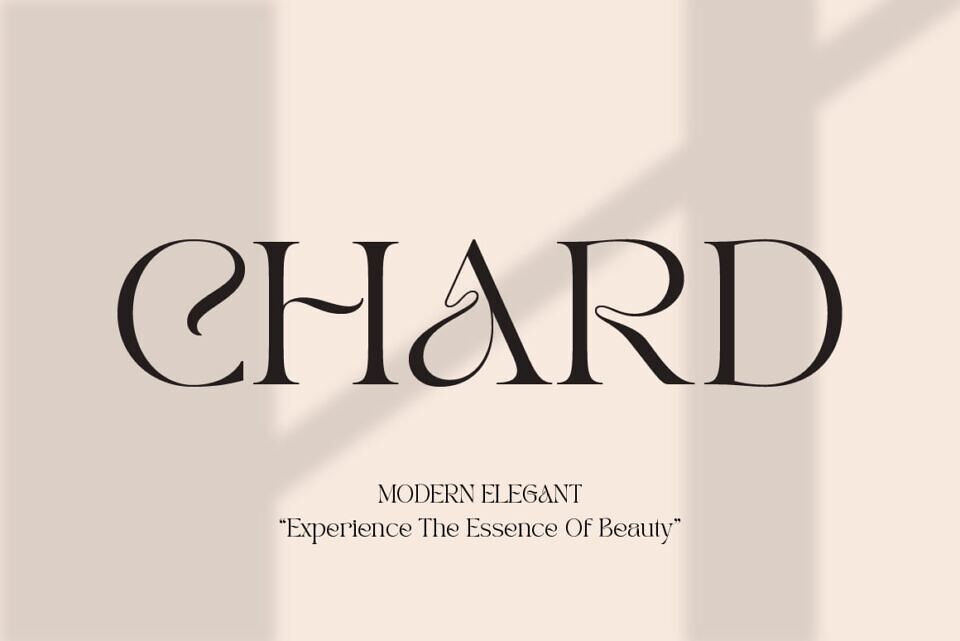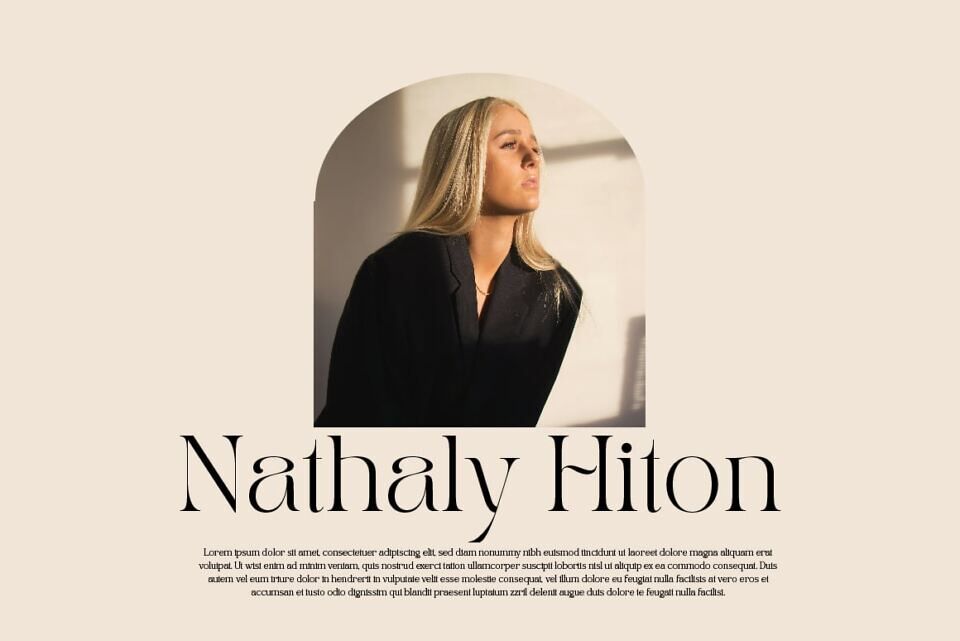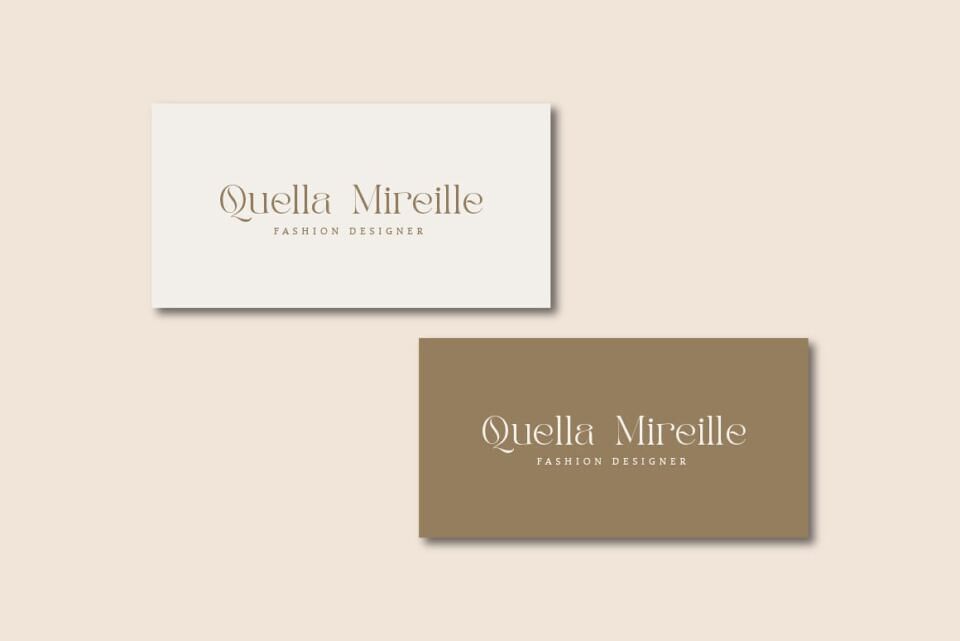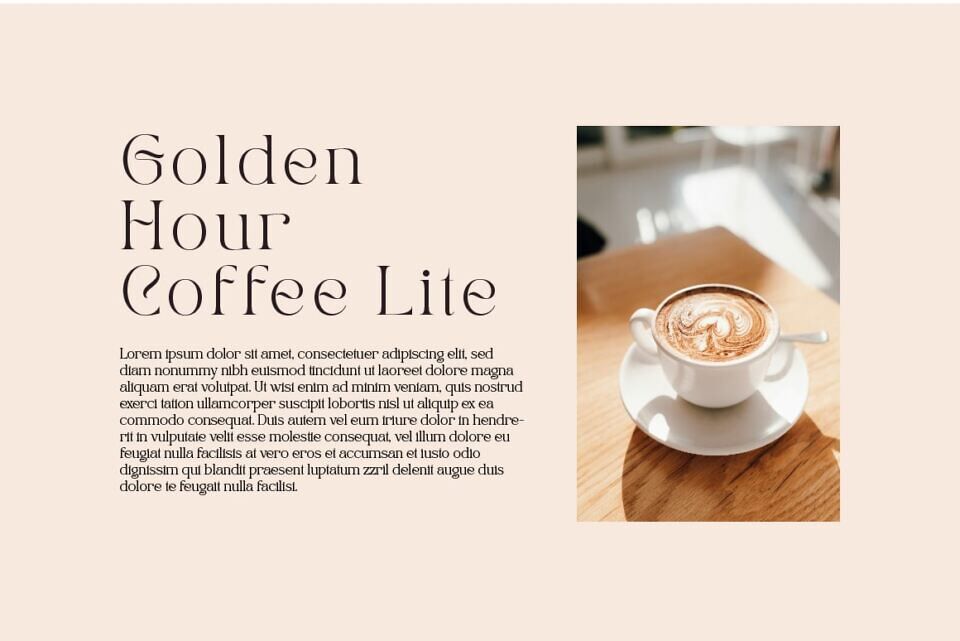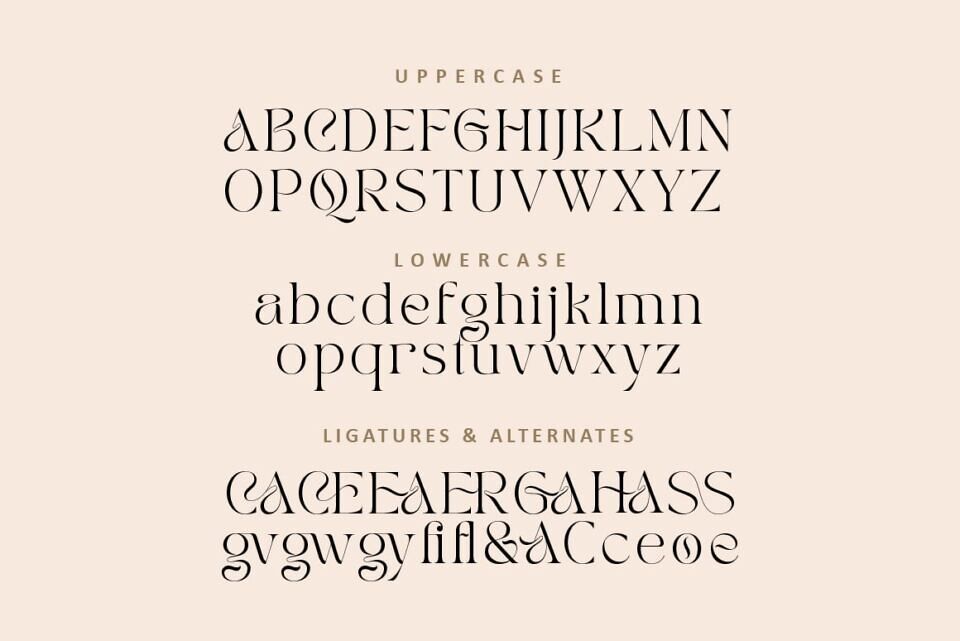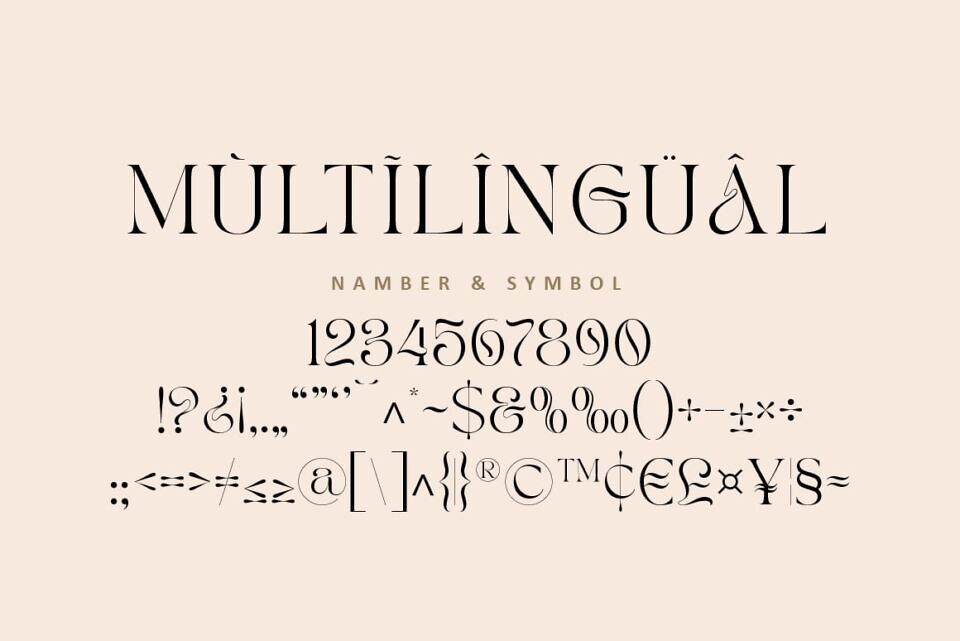
Chard Font
Chard is a bold, display serif typeface by Metafontsy, offering a striking blend of classic serif elegance with a psychedelic, retro twist—perfect for logos, headlines, and branding. Think groovy, vintage-inspired designs that demand attention—Chard brings character and flair to your big typography moments.